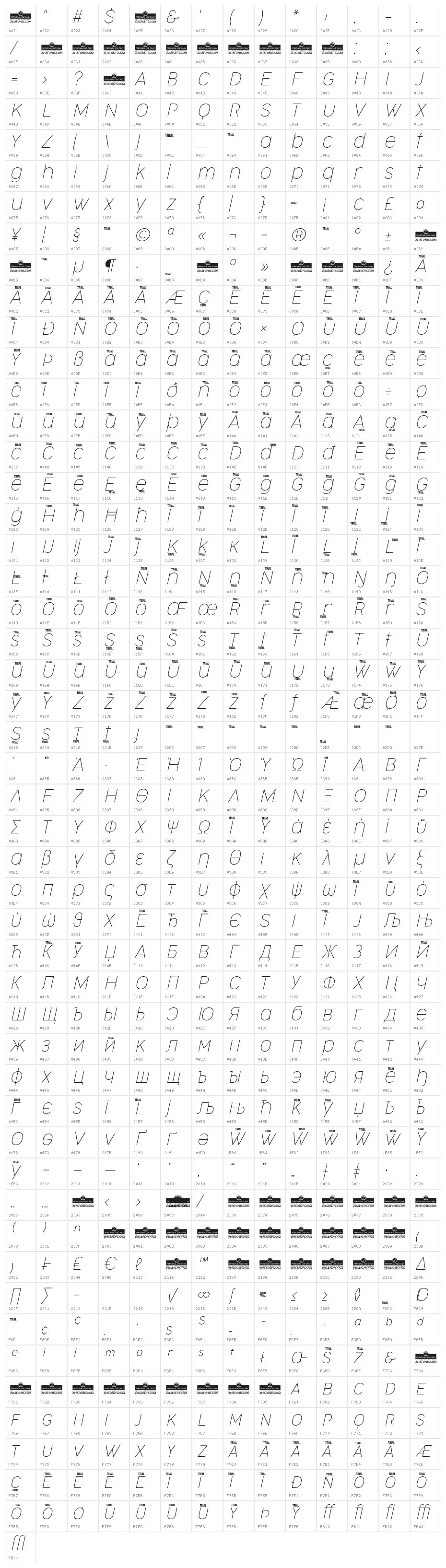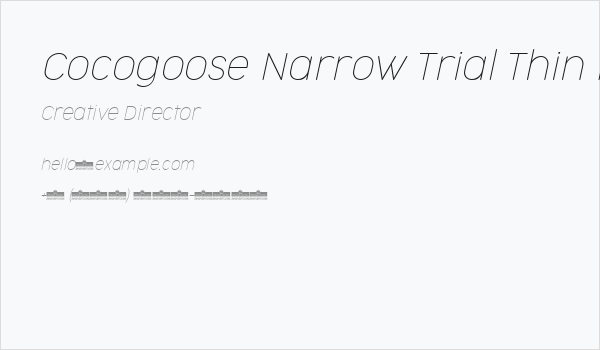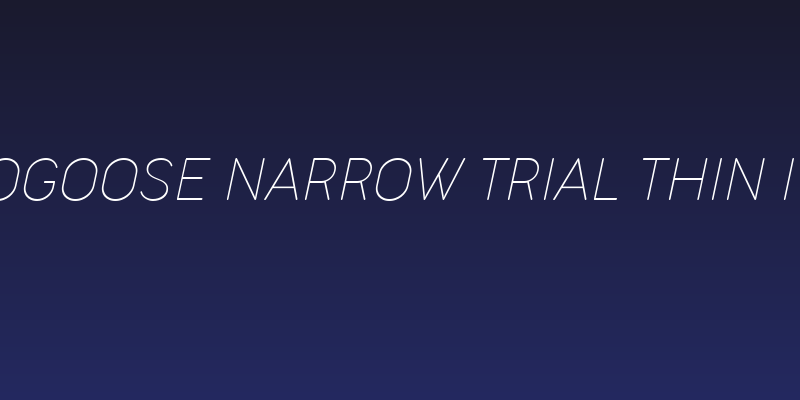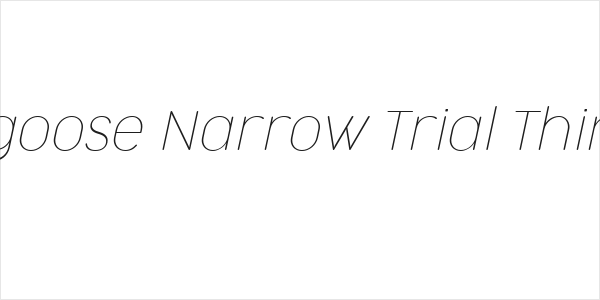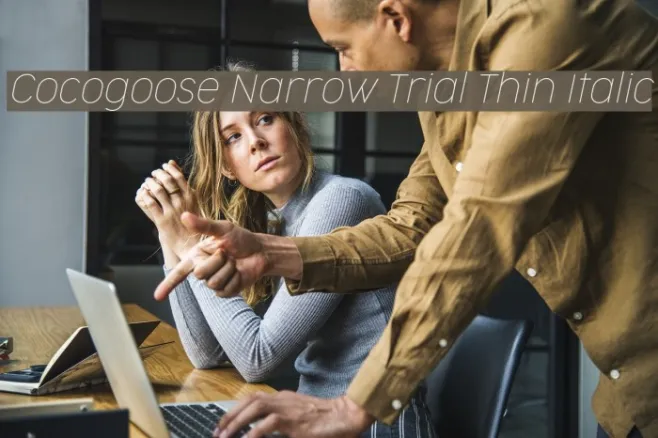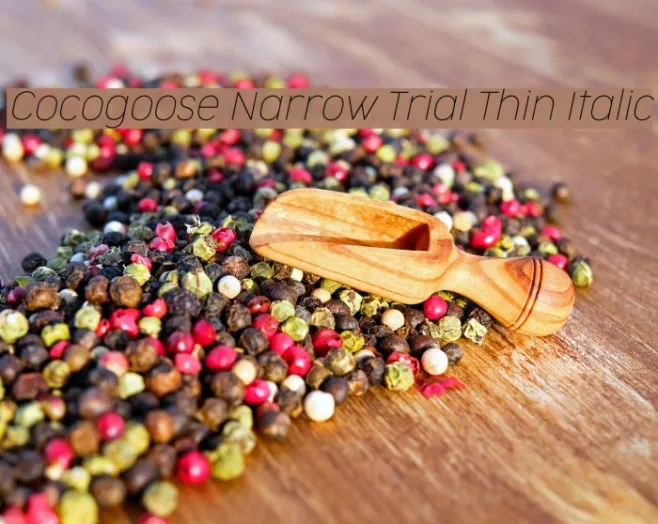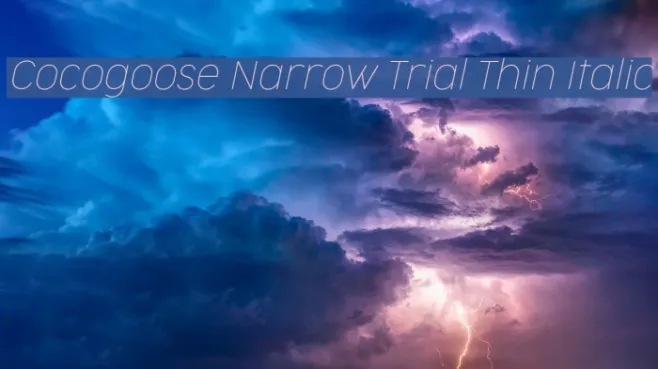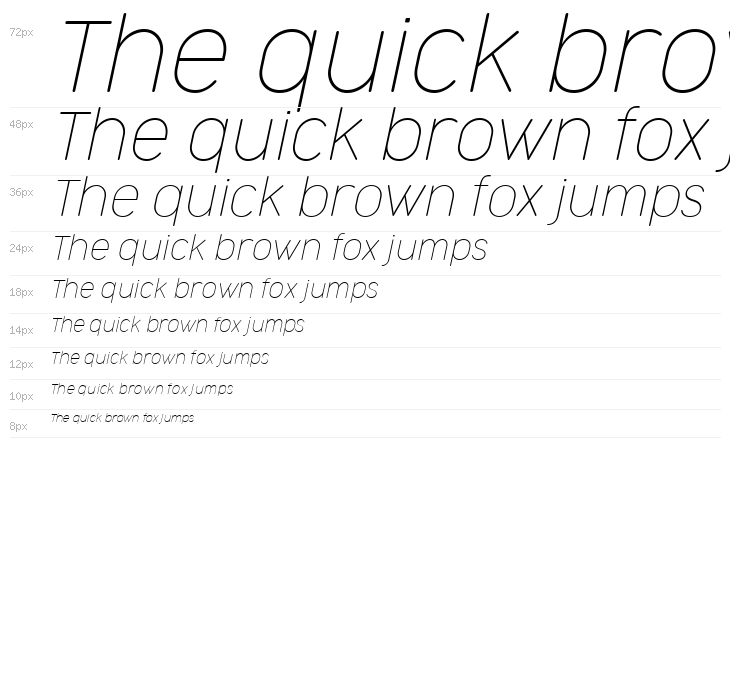
Cocogoose Narrow Trial Thin Italic Font
Cocogoose Narrow Trial Thin Italic Description
This font features a sleek and modern design with a narrow and elongated structure. The thin strokes and italic style give it a sophisticated and contemporary look. The characters are evenly spaced, providing a clean and airy appearance. The uppercase and lowercase letters maintain a consistent style, with smooth curves and sharp angles. The numerals and special characters complement the overall aesthetic, making it versatile for various design needs. Its minimalist and refined nature makes it suitable for projects requiring a touch of elegance and modernity.
| Proposed Projects | Ideal for branding, editorial design, fashion magazines, and modern web design. |